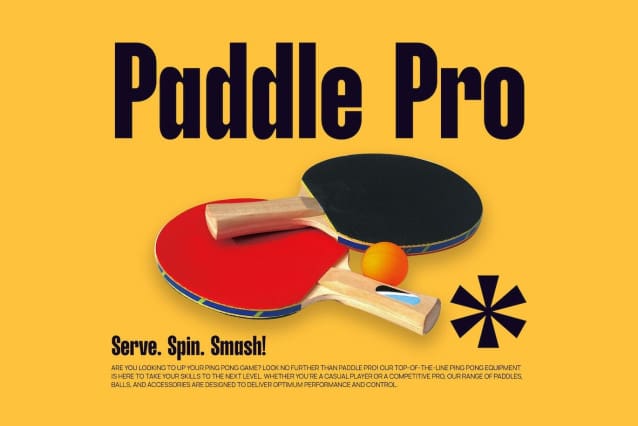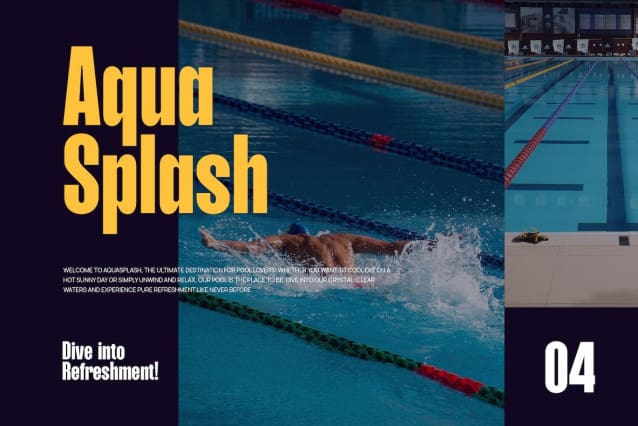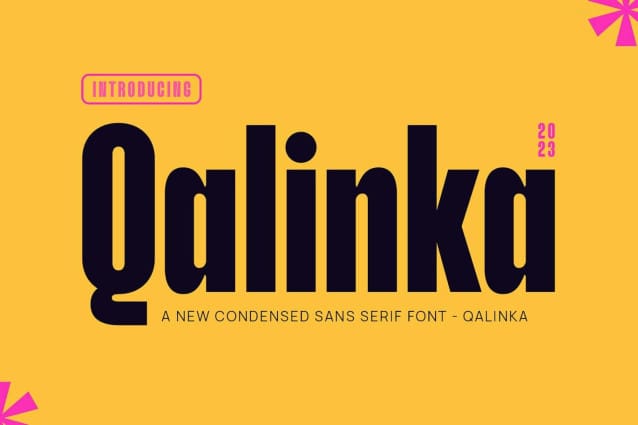
Qalinka Font
Qalinka Font, a modern sans serif font with an elegant style, perfect for brands, logos, invitations, magazines, product packaging and more.